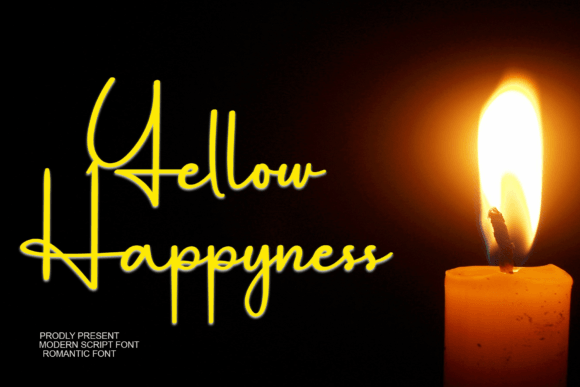
The Yellow Happiness font is a newly released, unmissable font that brings a charming touch to any project.
If you're seeking a font that exudes warmth, playfulness, and timeless sophistication, then look no further than the Yellow Happiness font. This carefully crafted font is a perfect choice for creating heartfelt love letters, adding a touch of whimsy to invitations, or giving your social media posts a captivating edge. Its versatility and adaptability make it suitable for a wide range of creative endeavors.
The Yellow Happiness font is a beautiful and elegant script font that is perfect for adding a touch of personality to your designs. It is inspired by timeless classic calligraphy, giving it a sophisticated and refined look. The font is also incredibly versatile, working well for a variety of projects, from wedding invitations to branding materials.
The Yellow Happiness font was created by Preketek Texs, a talented font designer with a passion for creating beautiful and functional fonts. Preketek has poured their heart and soul into creating this font, and it shows in the final product. The Yellow Happiness font is truly a work of art, and it is sure to add a touch of magic to your next project.
Whether you're a graphic designer, a web designer, or simply someone who loves beautiful fonts, the Yellow Happiness font is a must-have. It's a versatile and stylish font that will add a touch of sophistication to any project.
With Yellow Happiness Font, the perfect words will dance before your eyes, leaving a trail of unforgettable beauty and heartfelt emotions. It's not just a font; it's a chance to express yourself in a way that's truly captivating.
So, why settle for ordinary when you can have extraordinary? Embrace the Yellow Happiness font today and let your creativity soar to new heights! Its enchanting charm will undoubtedly ignite a spark of inspiration within you, leaving a lasting impression on all who encounter your creations. Choose Yellow Happiness and embark on a journey of limitless possibilities.